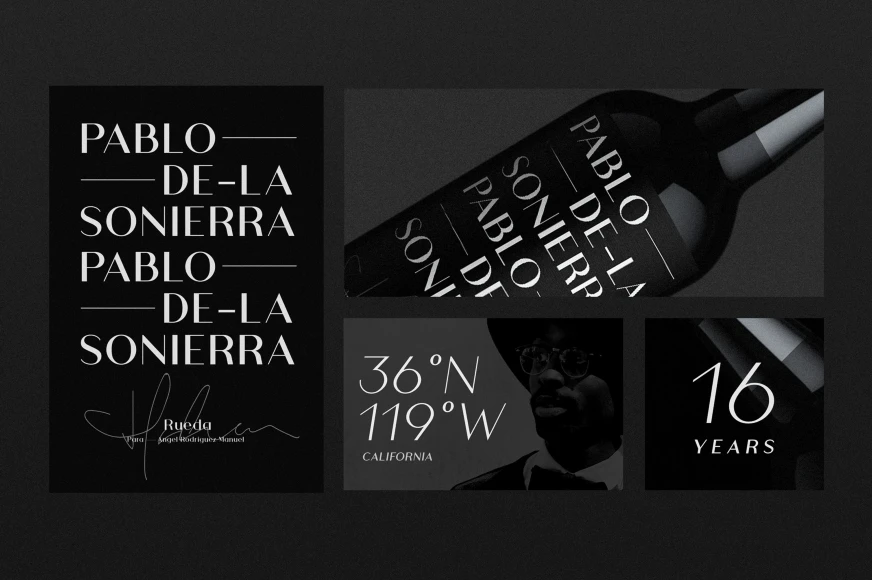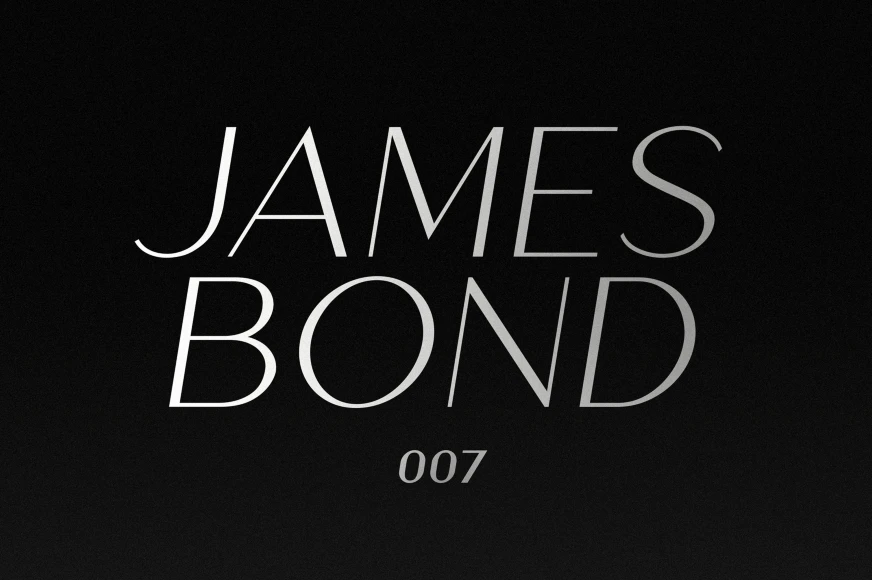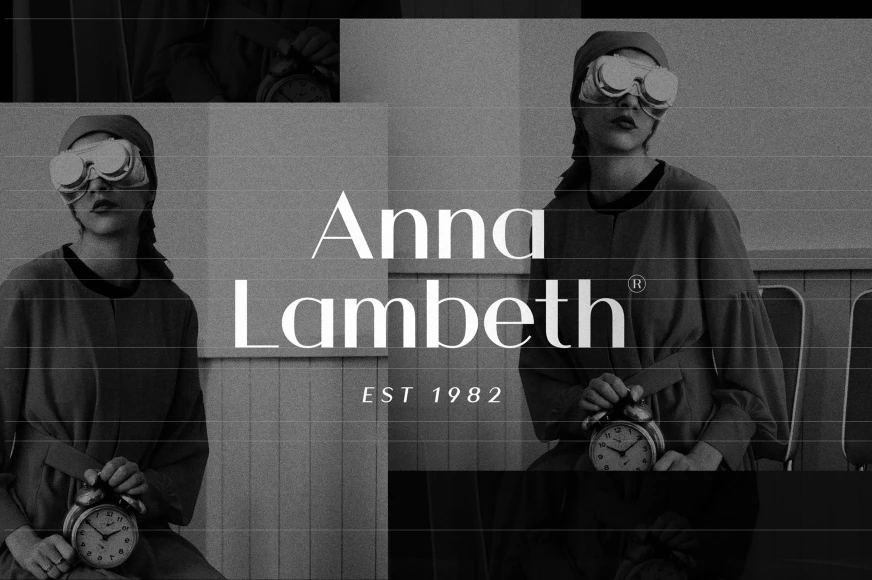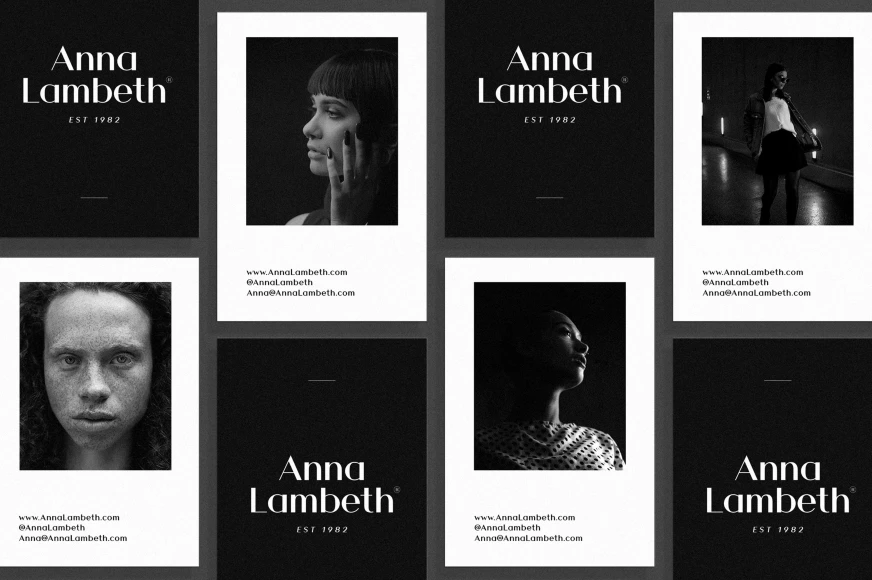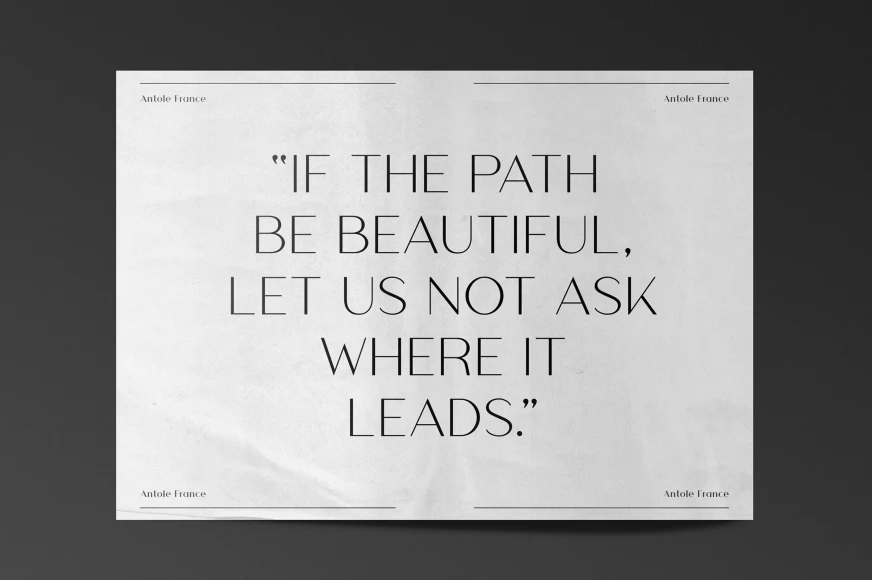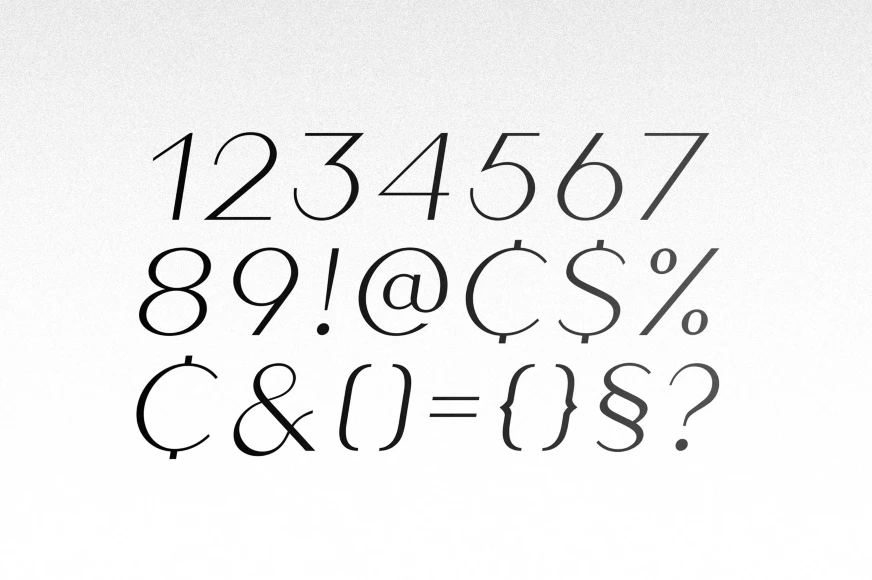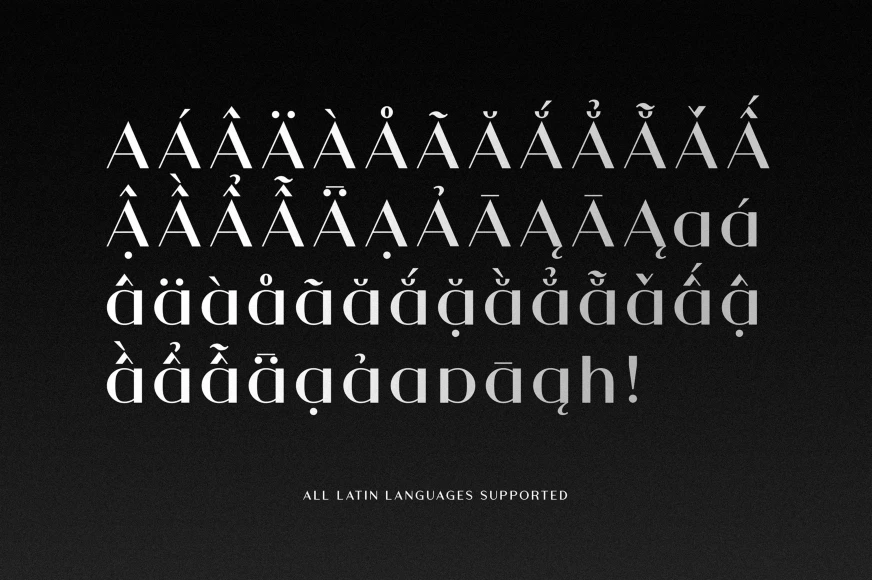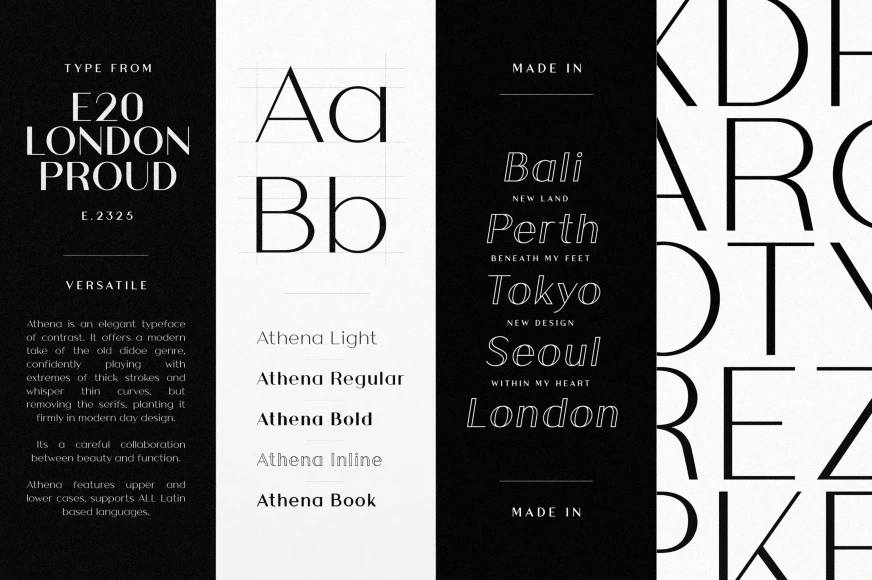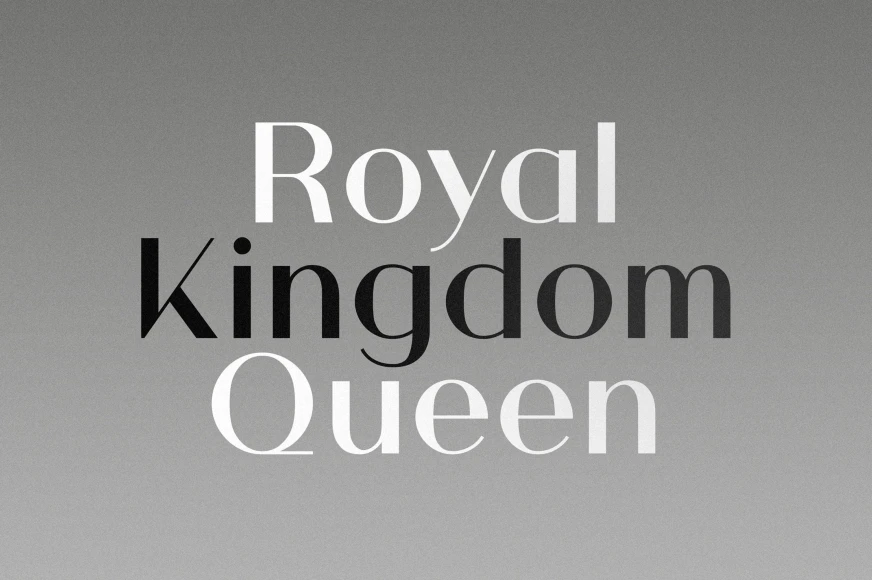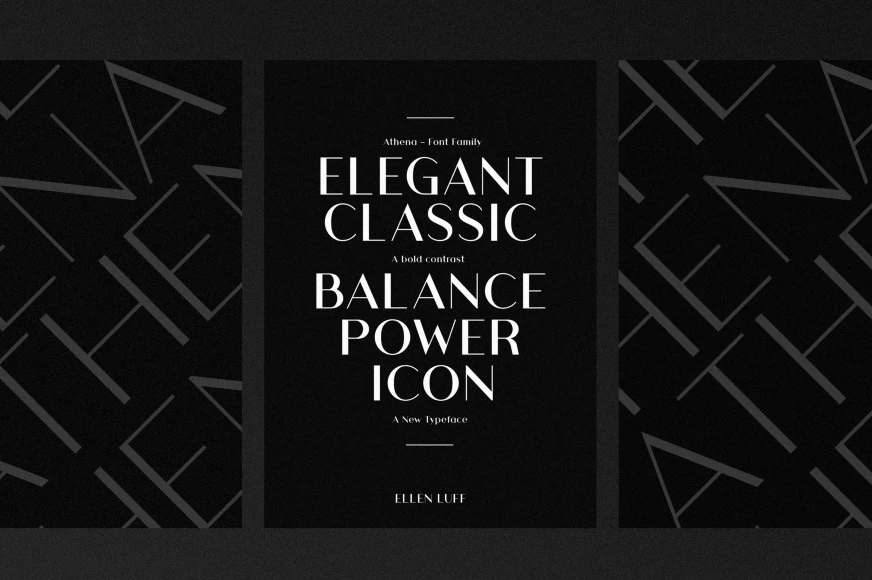
Athena
By Ellen Luff
Athena Inline
Athena Inline Italic
Athena Light
Athena Light Italic
Athena Regular
Athena Regular Italic
Athena Semi Bold
Athena Semi Bold Italic
Athena Bold
Athena Bold Italic
Athena, from Ellen Luff Type Foundry, is an elegant typeface of contrast. Designed for branding, headlines, and titles. The family offers class and clarity at larger and smaller sizes. It’s a modern, serifless take on the old Didone genre. A careful collaboration between beauty and function while confidently playing with extremes of thick strokes and whisper-thin curves. Athens Light, Regular, Bold, and inline are designed specifically for headlines, titles, and branding. Athens Book is optically designed for use in smaller sizes, making it ideal for body copy. Each font offers something different, but all are crafted to work harmoniously together.